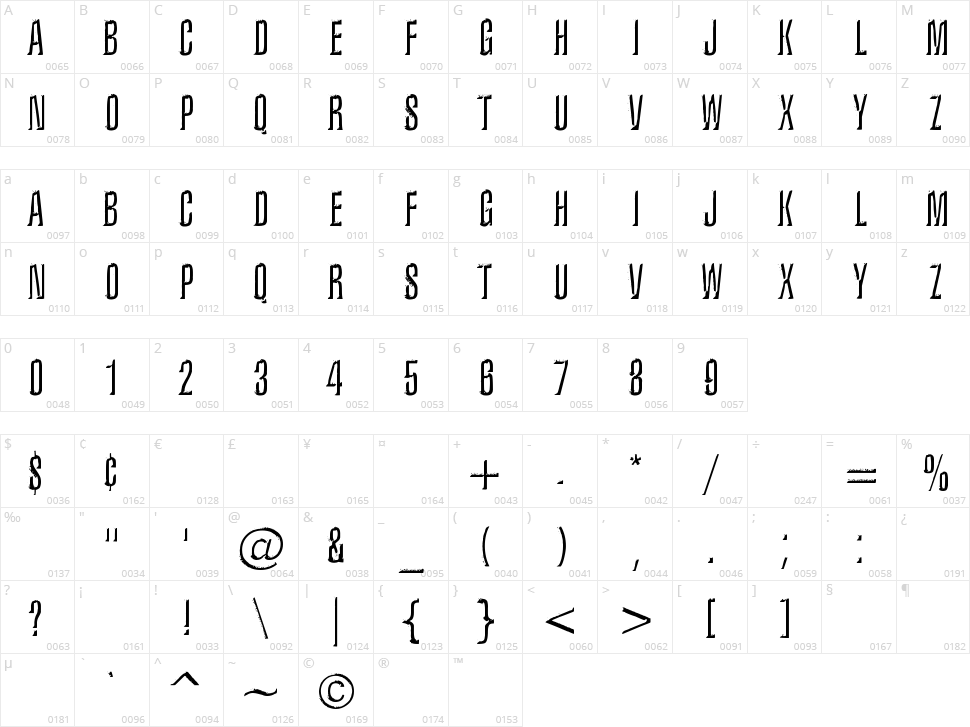
Iron Lung
IRON LUNG
A TrueType Font by S. John Ross
This font's sort of a hybrid, with elements of both a stressed font and an engraved font, with the end result standing in for crudely stamped letters from a plate of metal. Its an all-caps* font with a full keyboard set and the usual extras I tend to toss in (a few fractions, smart-quotes, dashes and whatnot). Enjoy.